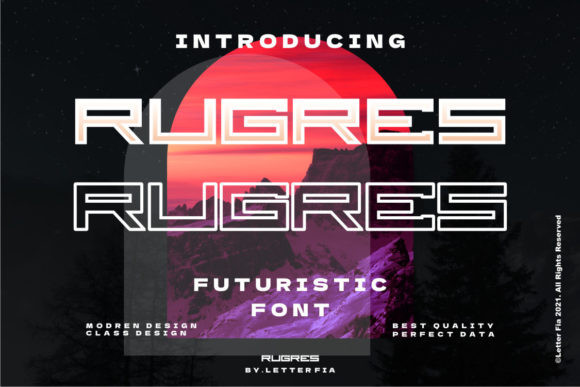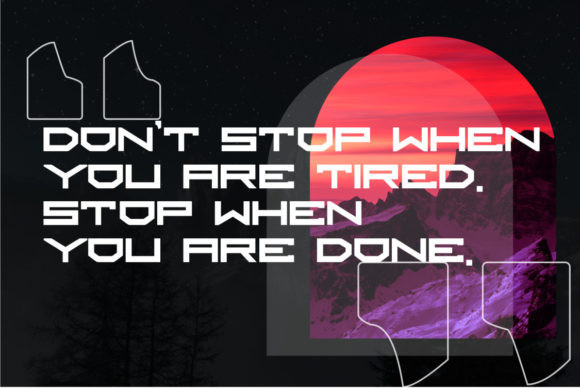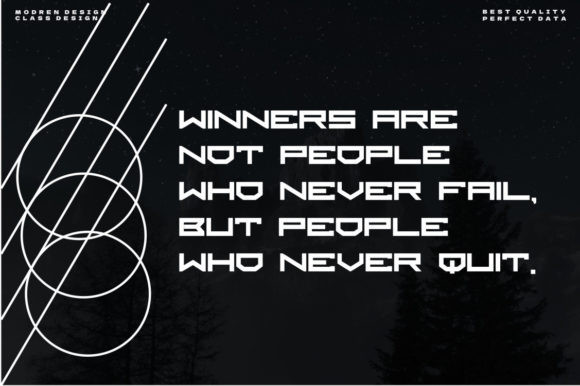
Rugres Font
Rugres is a cool, bold, robotic display font. This fierce font is ideal for writing web designs, business cards, or pretty much anything else that requires a unique touch.